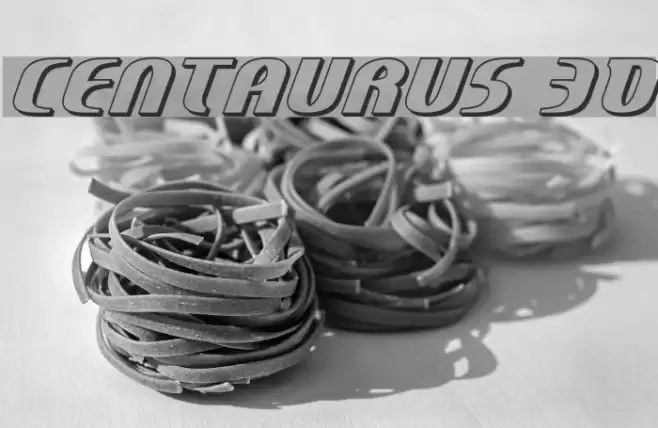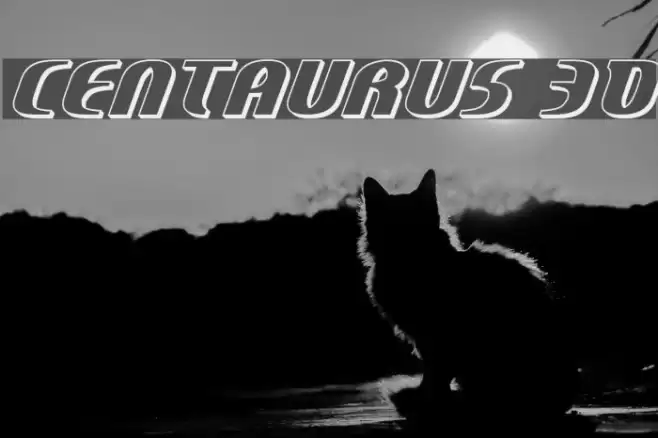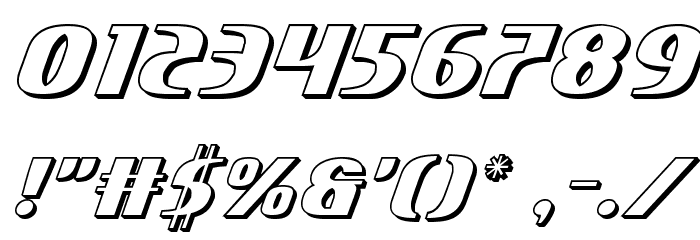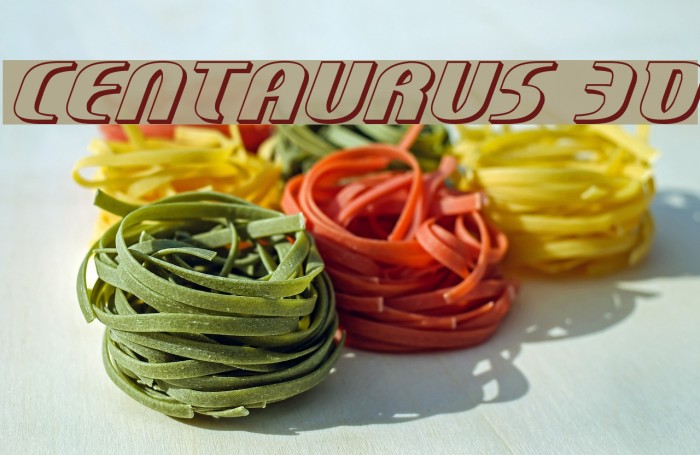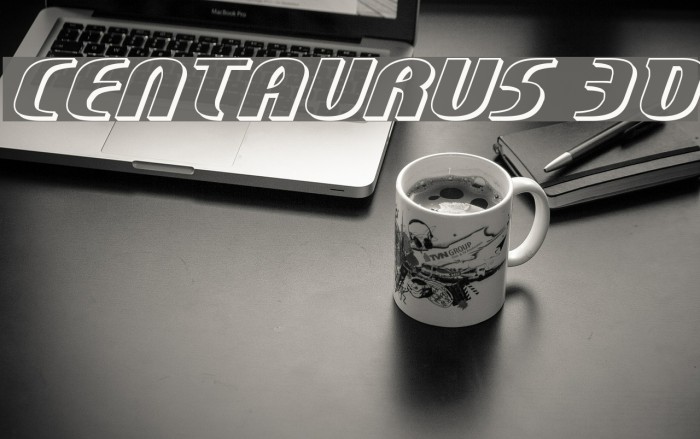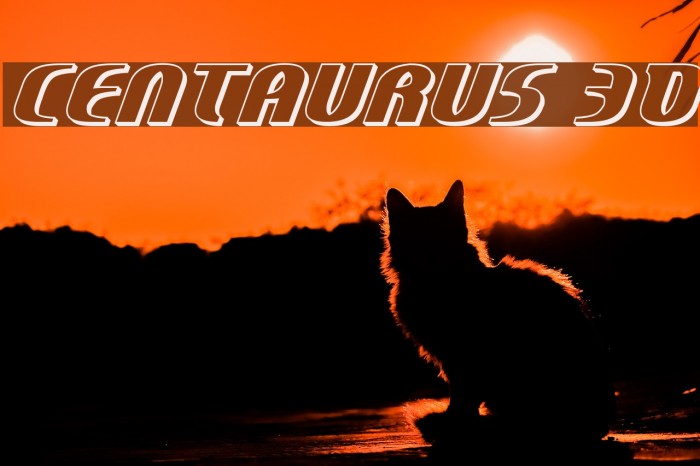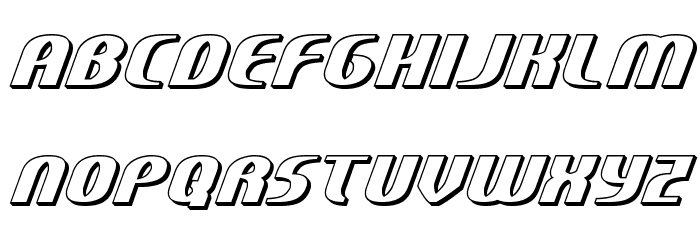
Centaurus 3D Font
Centaurus 3D Description
This font features a bold, three-dimensional style with a distinct shadow effect, giving each character a sense of depth and dynamism. The letters are uppercase with a slight slant, adding a touch of movement and energy. The strokes are thick and consistent, providing a strong visual impact. The font's design is clean and modern, with smooth curves and sharp edges that enhance its futuristic appearance. It is well-suited for projects that require a bold statement, such as headlines, posters, or branding materials. The numbers and special characters maintain the same 3D effect, ensuring consistency across all elements.
A bold, 3D font with a modern and dynamic style from Uncategorized fonts.
- Proposed Projects: Ideal for headlines, posters, branding, and any project needing a strong visual impact.